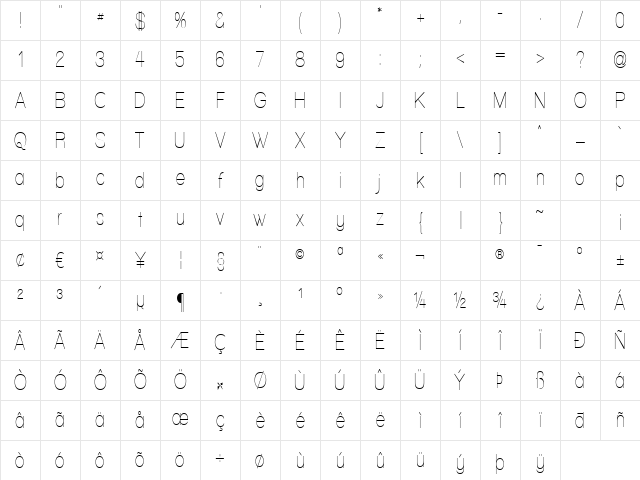
Walkway Condensed Regular
Design Context for Walkway Condensed
Walkway Condensed is a composed and adaptable typeface that performs quietly and consistently across a wide range of design contexts. Its narrow stance lets it pack a punch even in space-constrained designs.